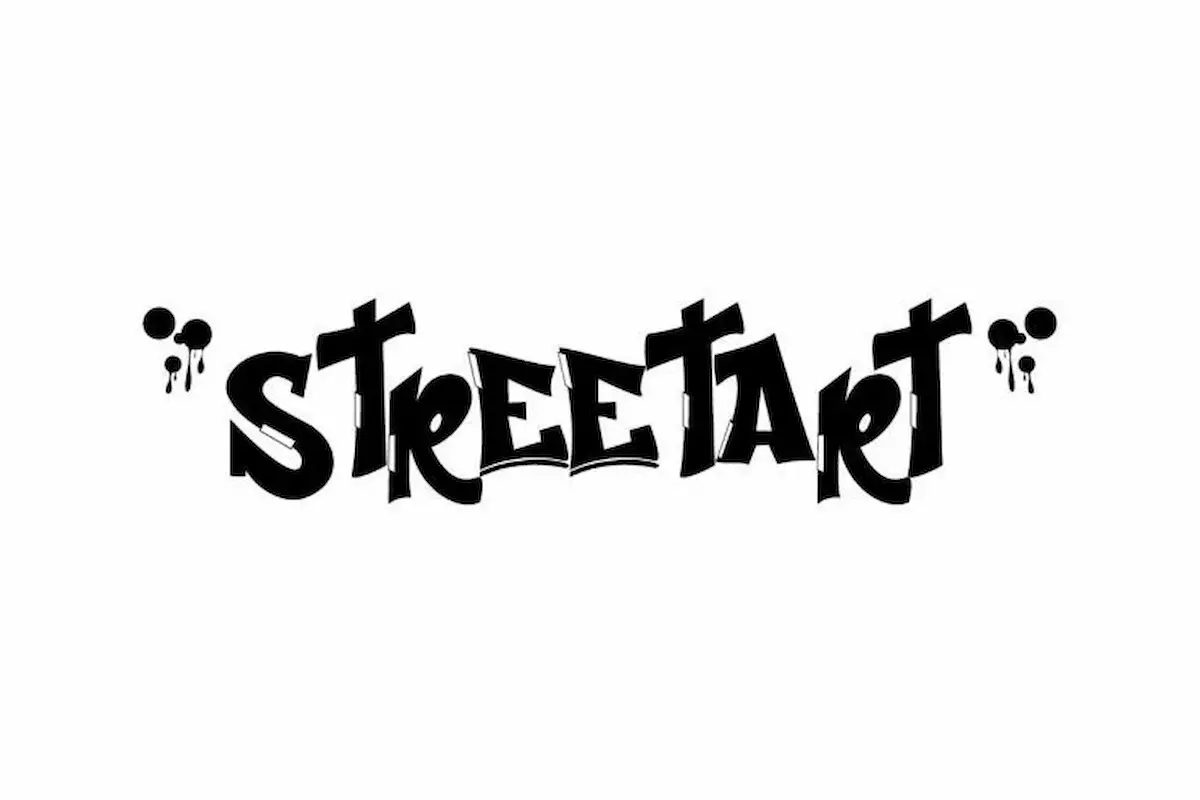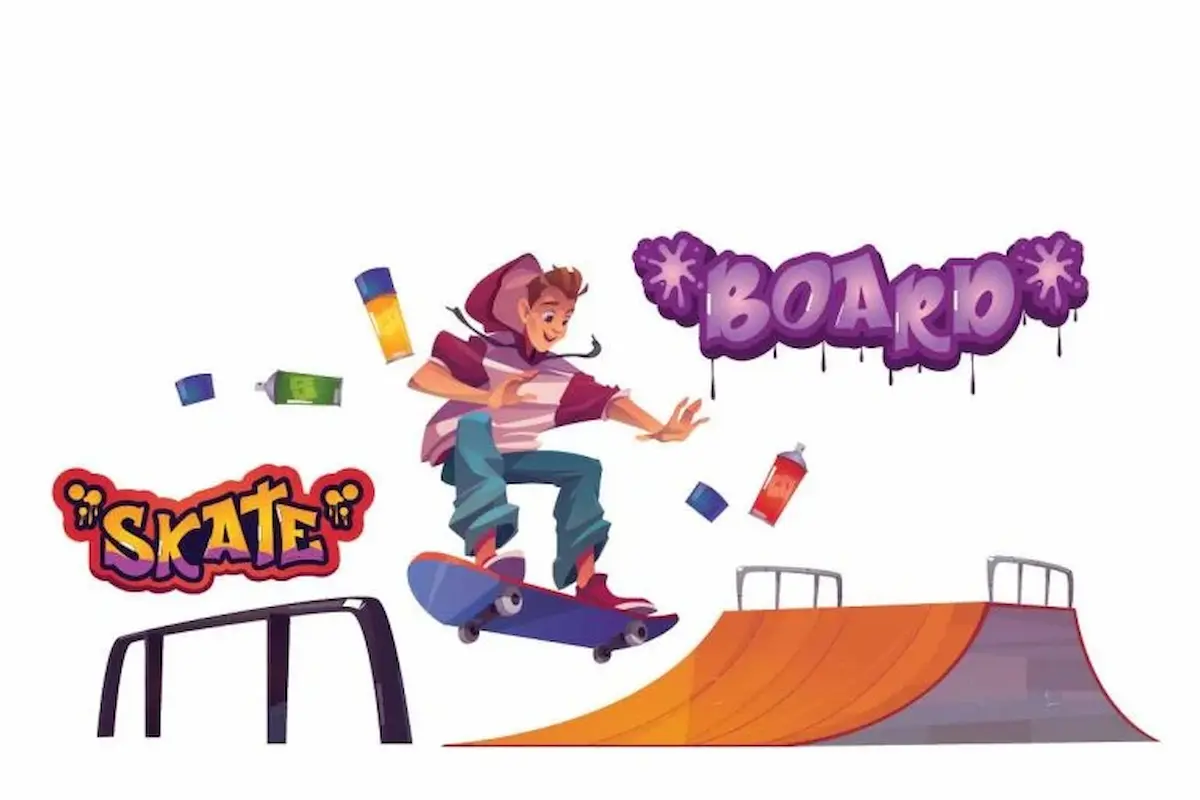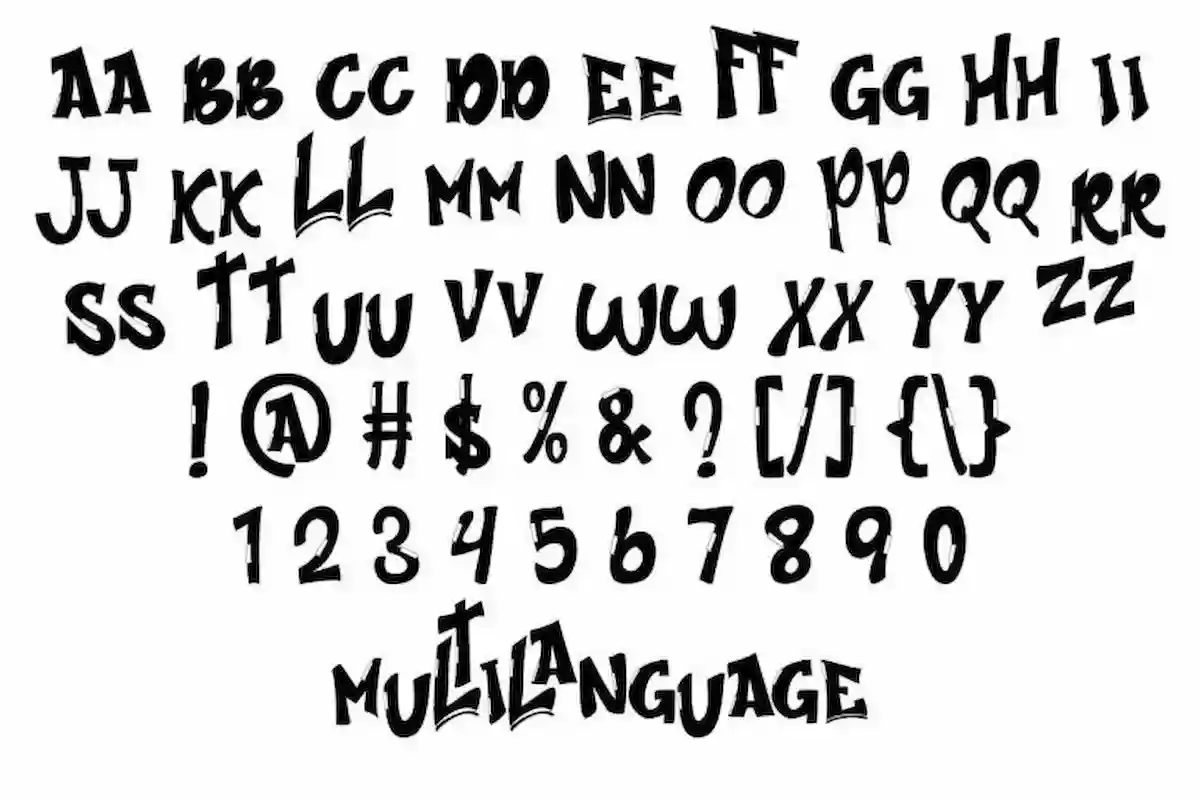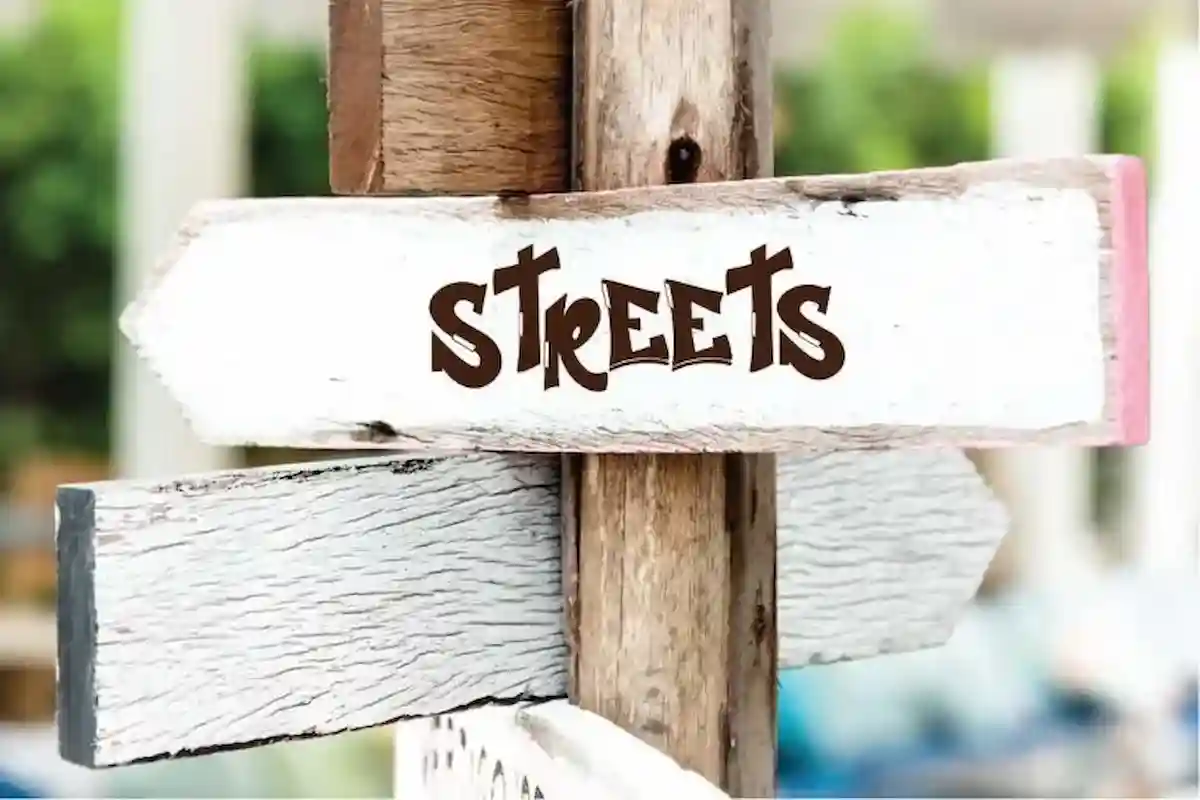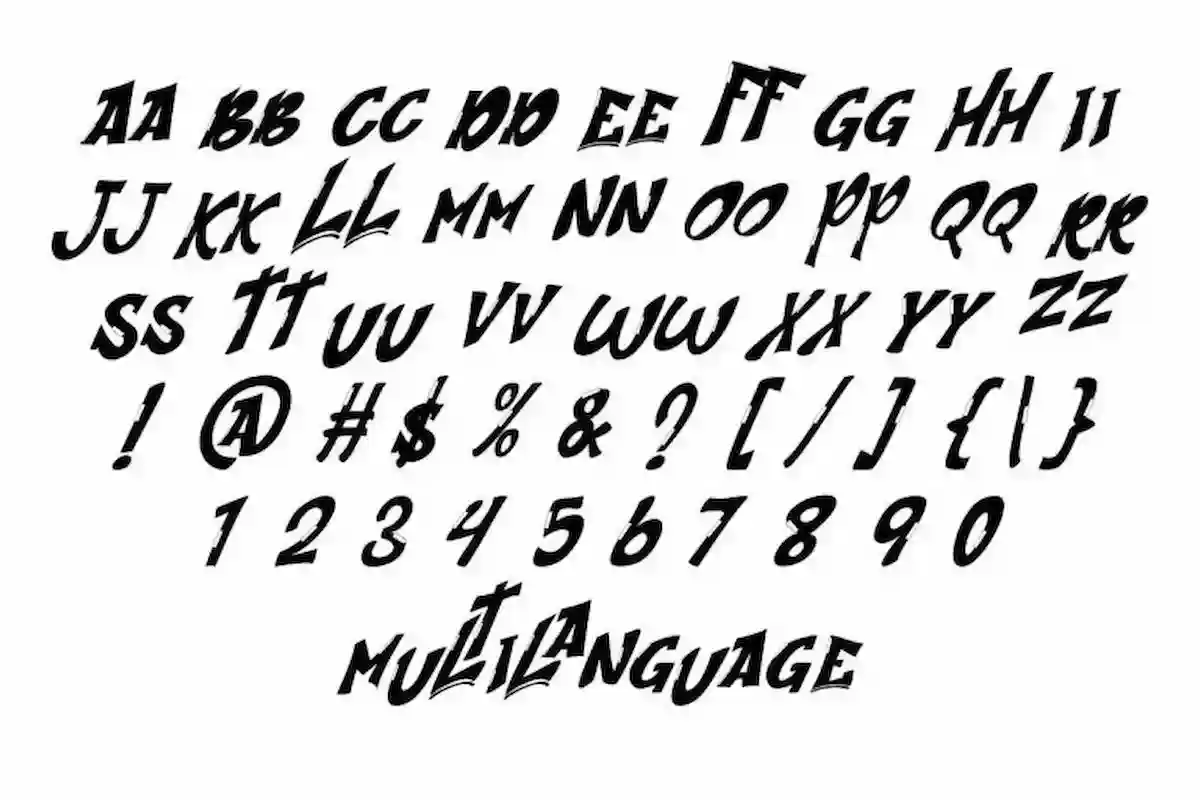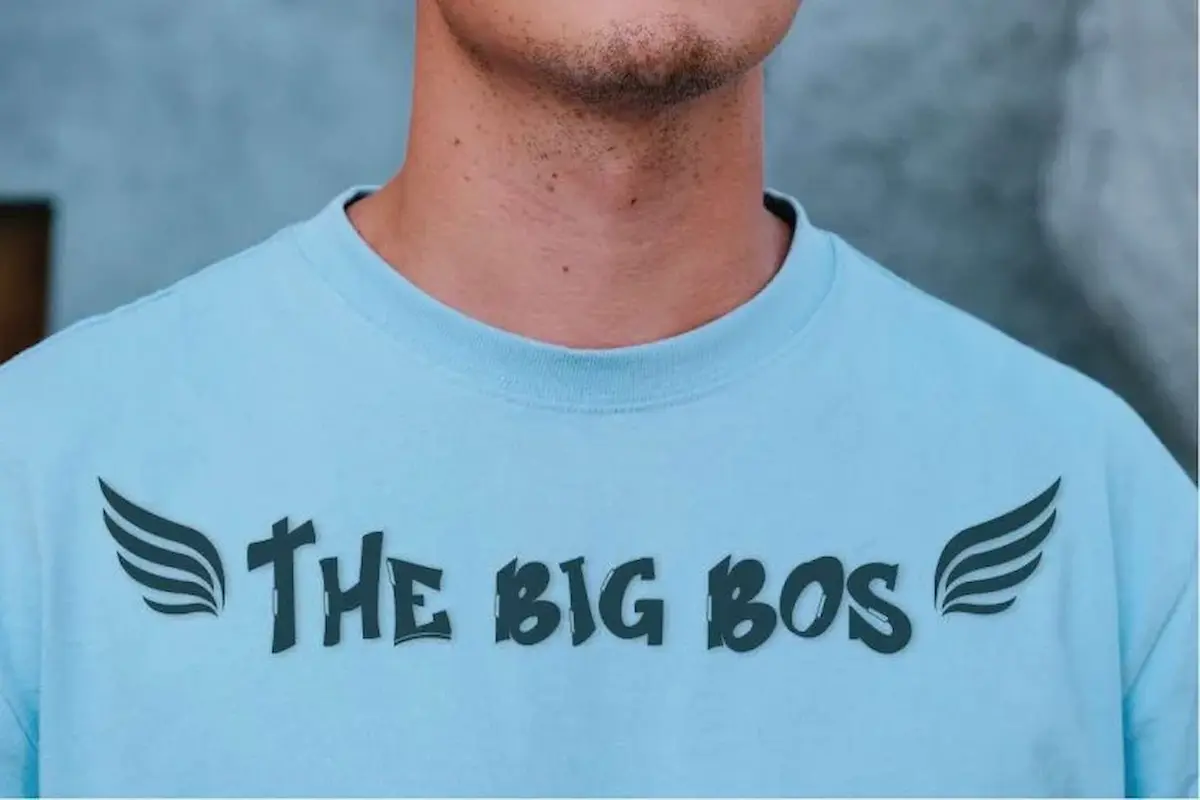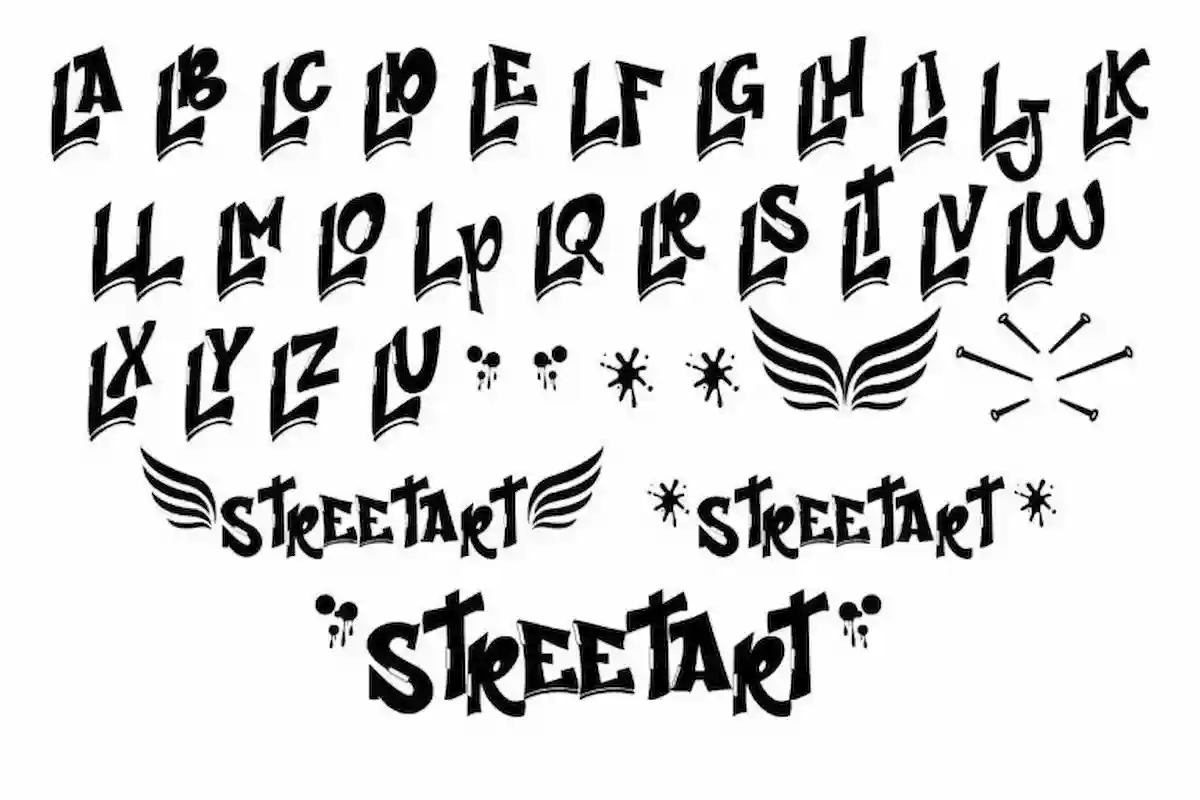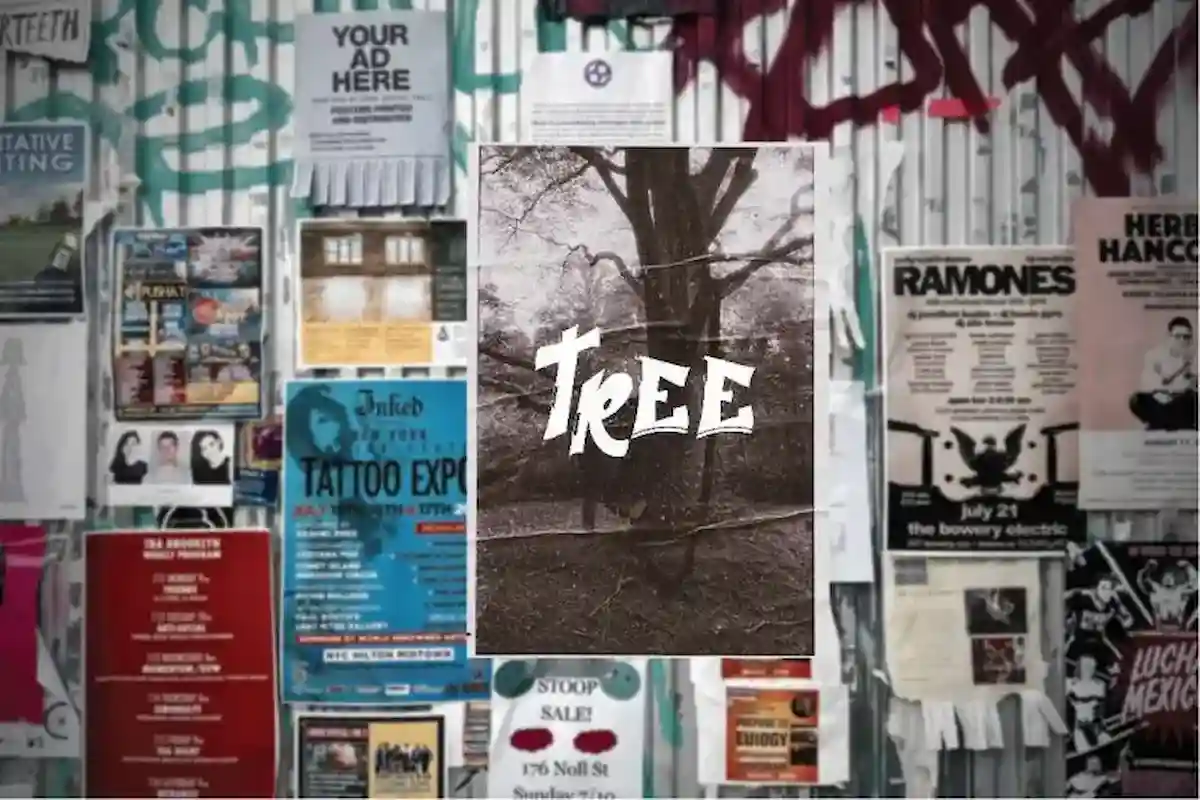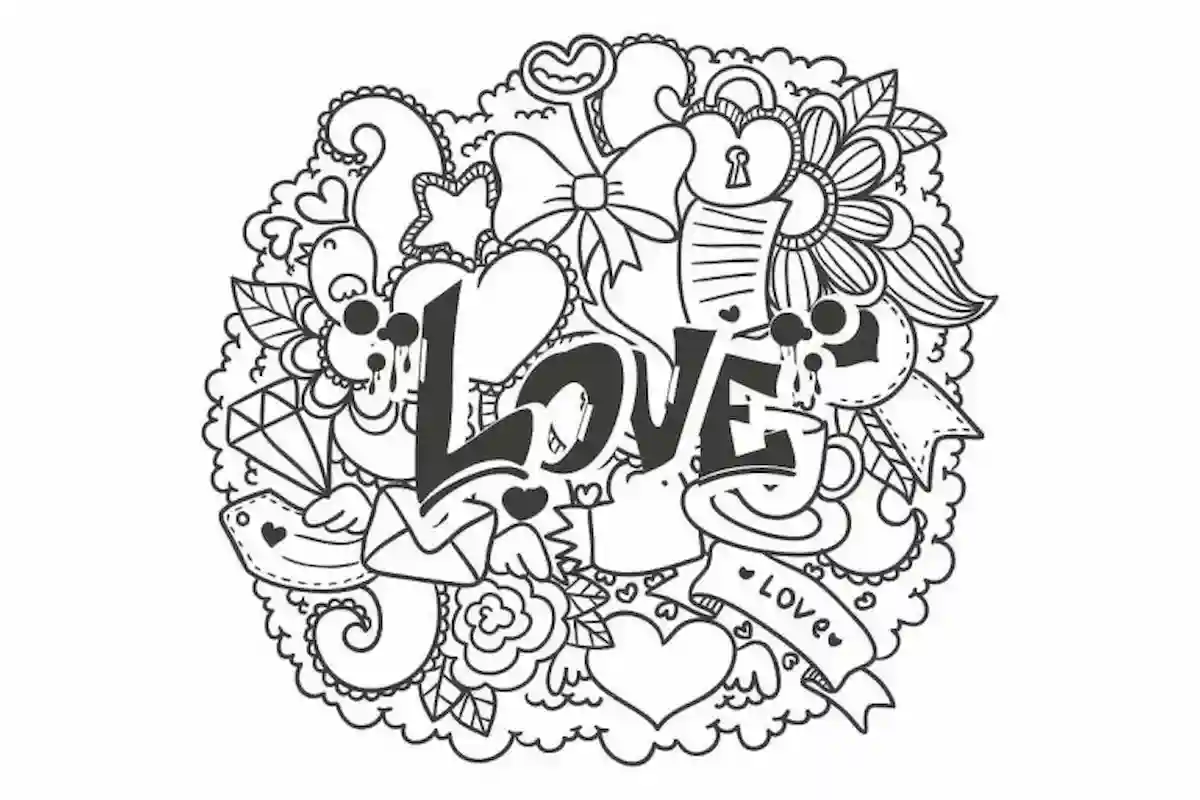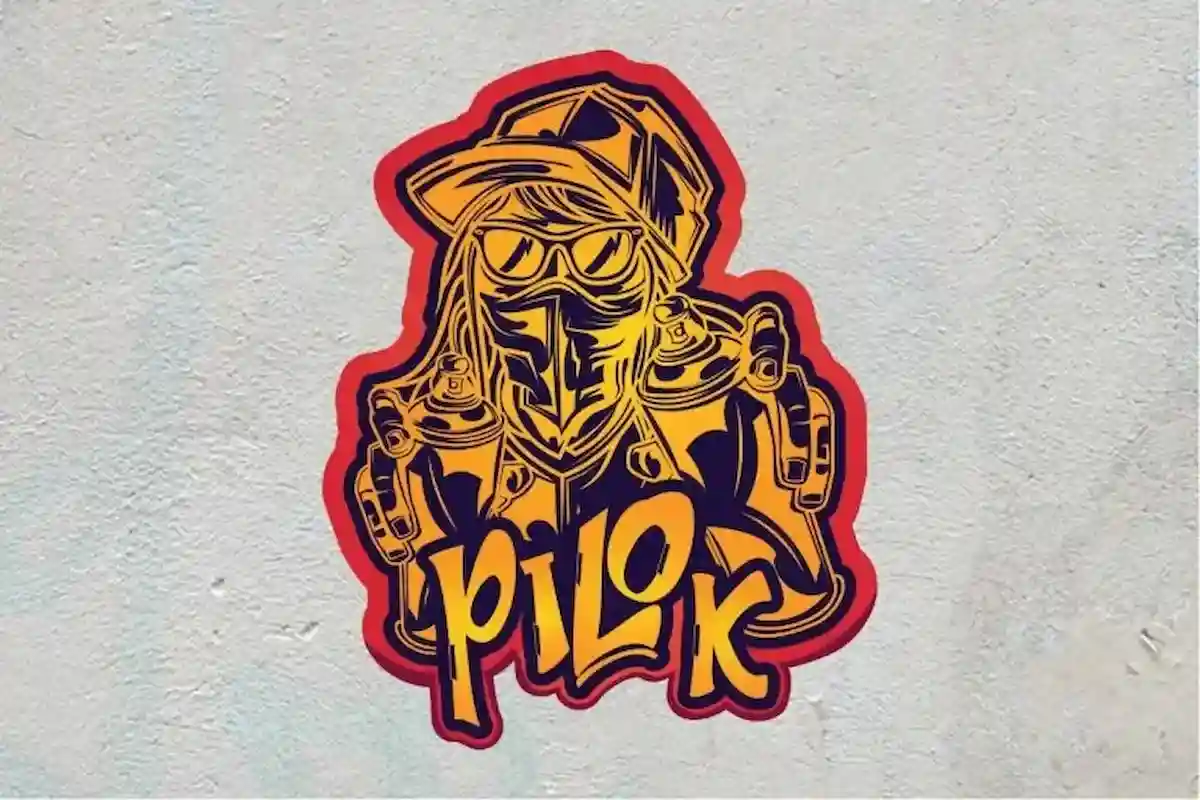
Streetart Graffiti Font is a display font by NihStudio, made in 2021. Great for headline, logo, poster, advertising, games etc.
Streetart Font is a display decorative font with Graffiti mural style. The font have two style options for you to choose or combine : Regular and Italic. The font Originally designed by NihStudio Team : Shalsa and Sarah. On the package you will get :